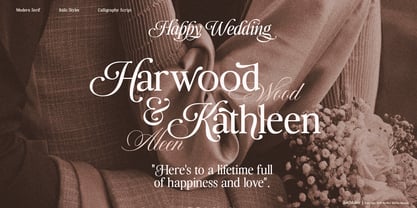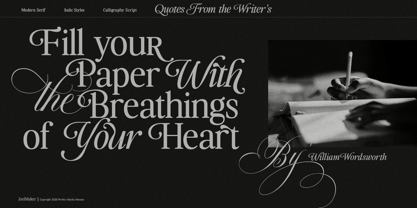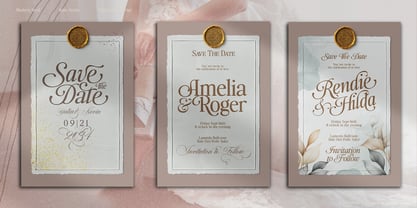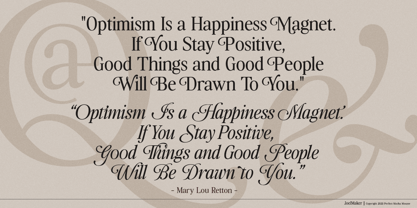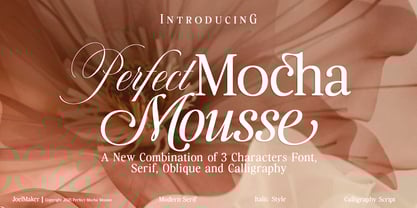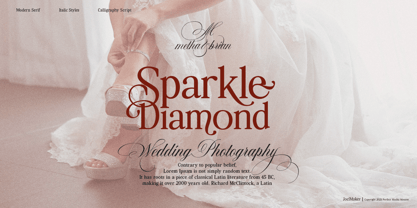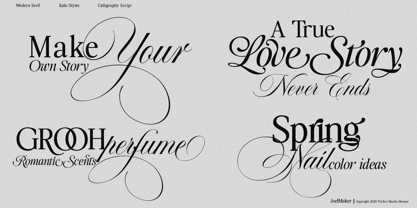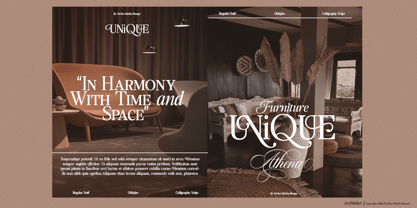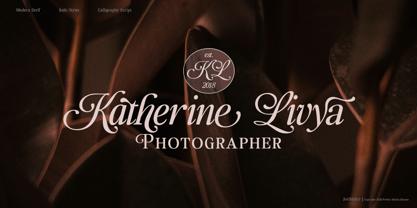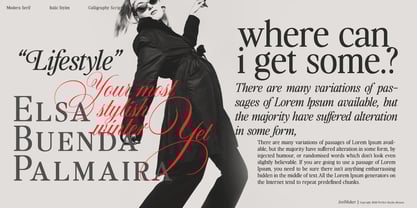
Perfect Mocha Mousse
by Joelmaker
PERFECT MOCHA MOUSSE
Three Fonts in One Style
"Perfect Mocha Mousse" A font inspired by an 80s serif letter on a nameplate, so the author combines it with script and italics to make it a unique and modern font touchyet vintage, this font is designed to be very unique, but still wrapped in a basic serif and oblique serif and combined with Calligraphy letter as a harmonious companion.
Don't forget, this font also comes with various Alternates which are very pleasing to the eye as well as ligatures and discretionary ligatures
very diverse styles, which are designed with it a and little swirly embedding, so that a modern font is formed and ready to make a statement by adding elegant and unique flair to your next design project.
"Perfect Mocha Mousse" can be used for various purposes of your next design, making your work look so real.